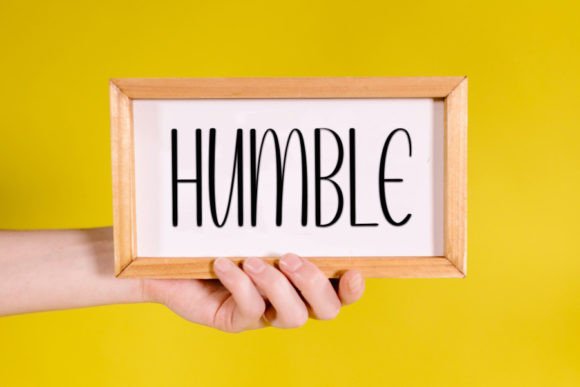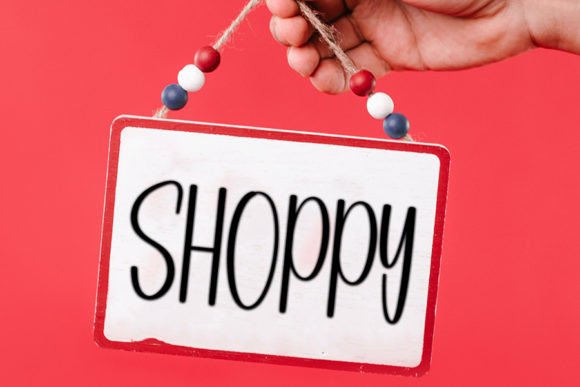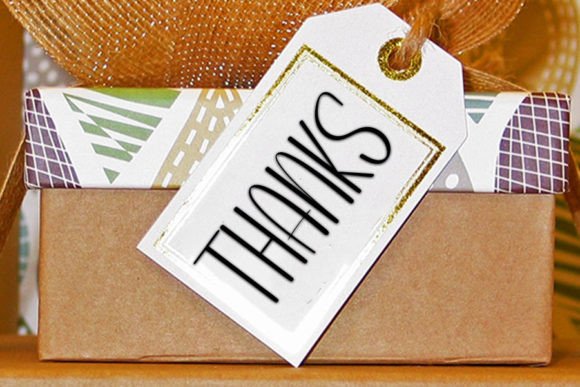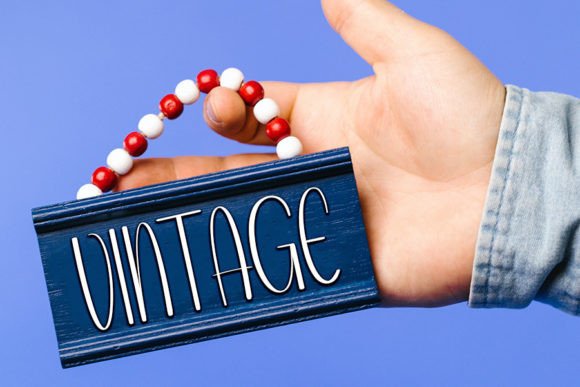
Octrouble Font
Octrouble Font Download – Elegant Neat Handwritten Script
The Octrouble Font download is a neat handwritten script that combines elegance with timeless appeal. With its graceful curves and well-balanced strokes, this typeface is suitable for a wide range of personal and professional projects. Because it blends style with readability, it is an excellent choice for designers seeking versatility.
Elegant and Timeless Handwritten Style
Octrouble features smooth letterforms and a natural flow that make text look refined. As a result, it brings sophistication while keeping the approachable charm of handwriting. In addition, its timeless qualities ensure your designs remain fresh and stylish.
From wedding invitations to seasonal cards, this font adds a heartfelt and creative touch. It makes every word appear warm and personal. Therefore, it is a great option for stationery projects.
Octrouble Font Download for Posters and Logos
The Octrouble Font download also works beautifully in posters, logos, and branding materials. Its elegant design helps projects stand out while keeping text easy to read.
Versatility Across Creative Projects
This font adapts to crafts, digital artwork, and social media graphics with ease. In addition, it works seamlessly across both print and digital formats, making it valuable for modern creators.
Readability and Style Balance
Some handwritten fonts may look decorative but lack readability. However, Octrouble maintains a perfect balance between elegance and clarity. As a result, it performs well in both headlines and supporting text.
Why Add This Script Typeface to Your Collection?
The OctroubleFont download is versatile, stylish, and easy to use. In other words, it fits greeting cards, invitations, posters, branding, and creative designs alike. Finally, it is a handwritten font that adds elegance, charm, and timeless beauty to every project.